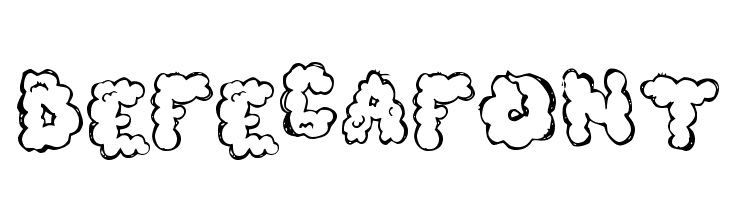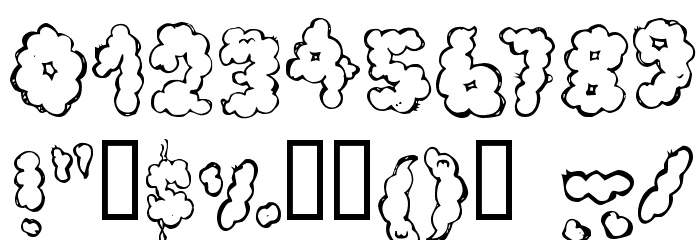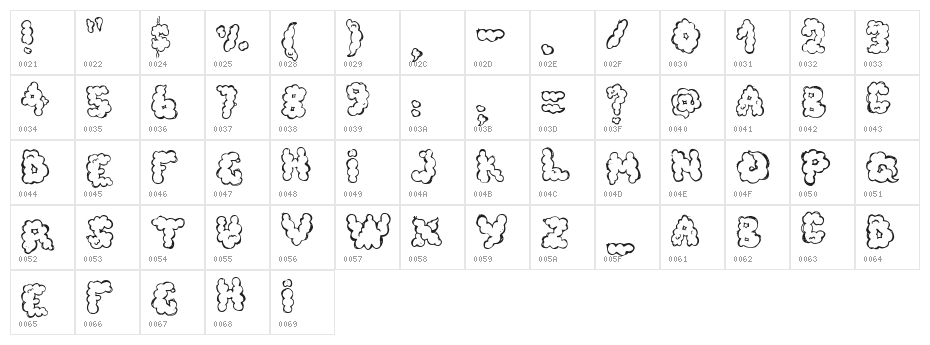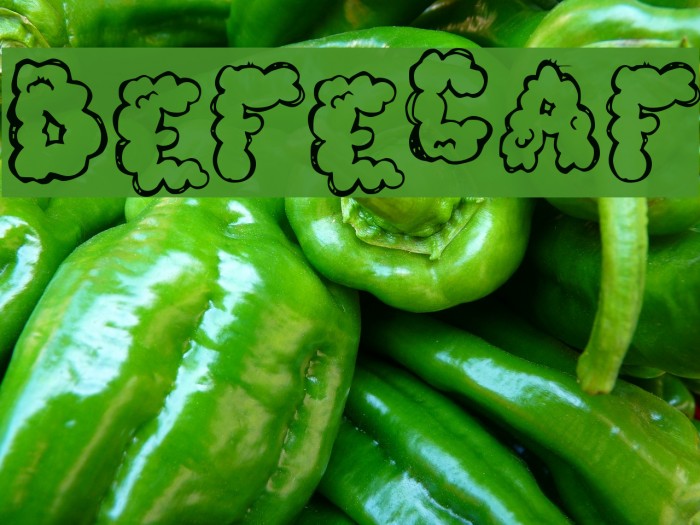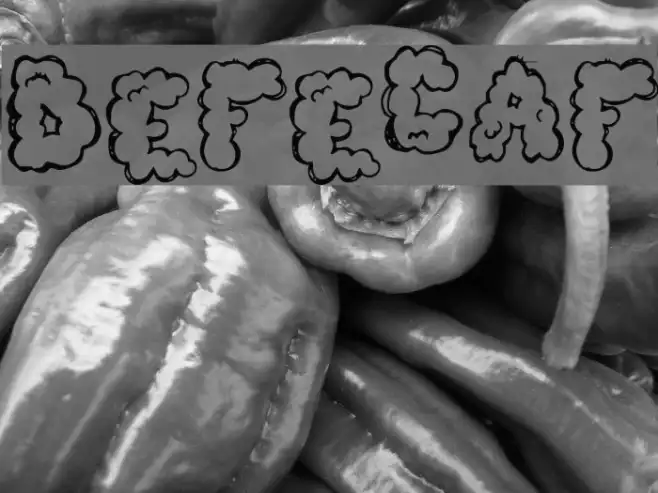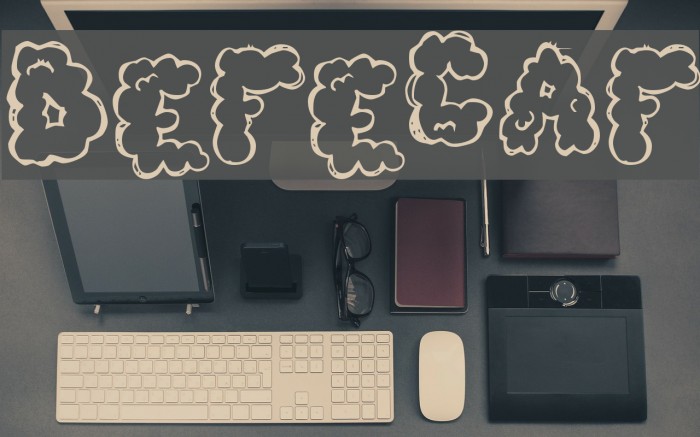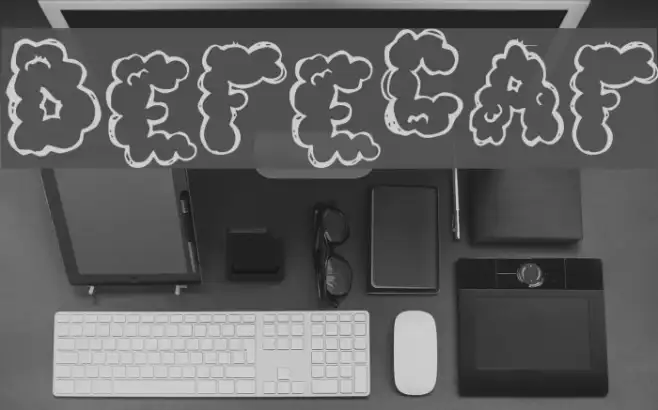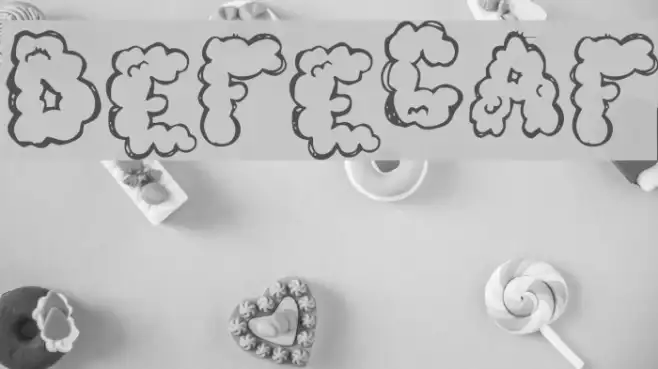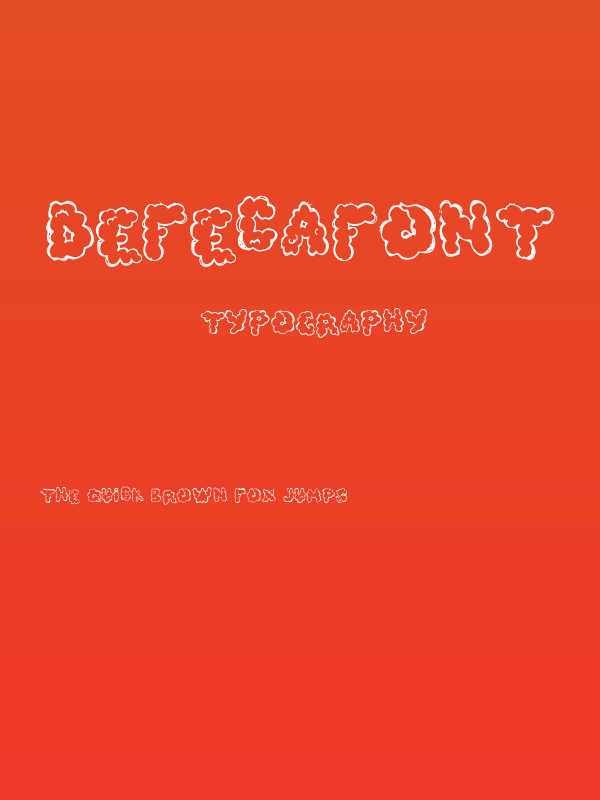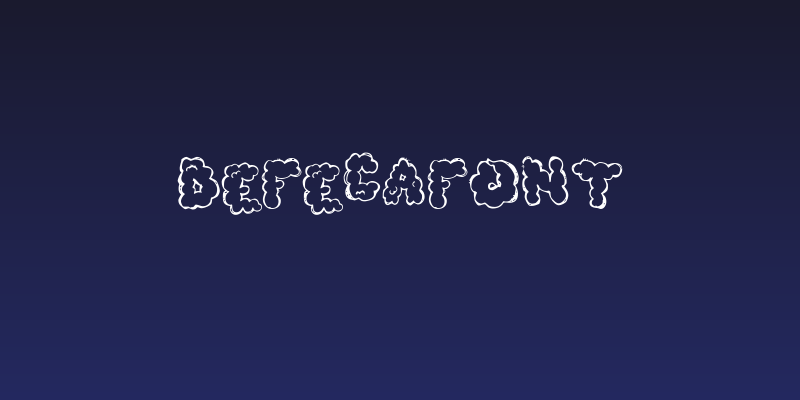
defecafont Font
defecafont Description
This playful and whimsical font features characters that resemble fluffy clouds or puffs of smoke, giving it a lighthearted and fun appearance. The letters are bold and rounded, with a consistent thickness throughout, creating a cohesive and uniform look. The font includes both uppercase and lowercase letters, numbers, and a variety of special characters, all maintaining the same bubbly style. The overall design is eye-catching and unique, making it suitable for creative and informal projects.
| Overall Style | Whimsical |
| Proposed Projects | Ideal for children's books, playful branding, party invitations, or any project needing a fun and whimsical touch. |